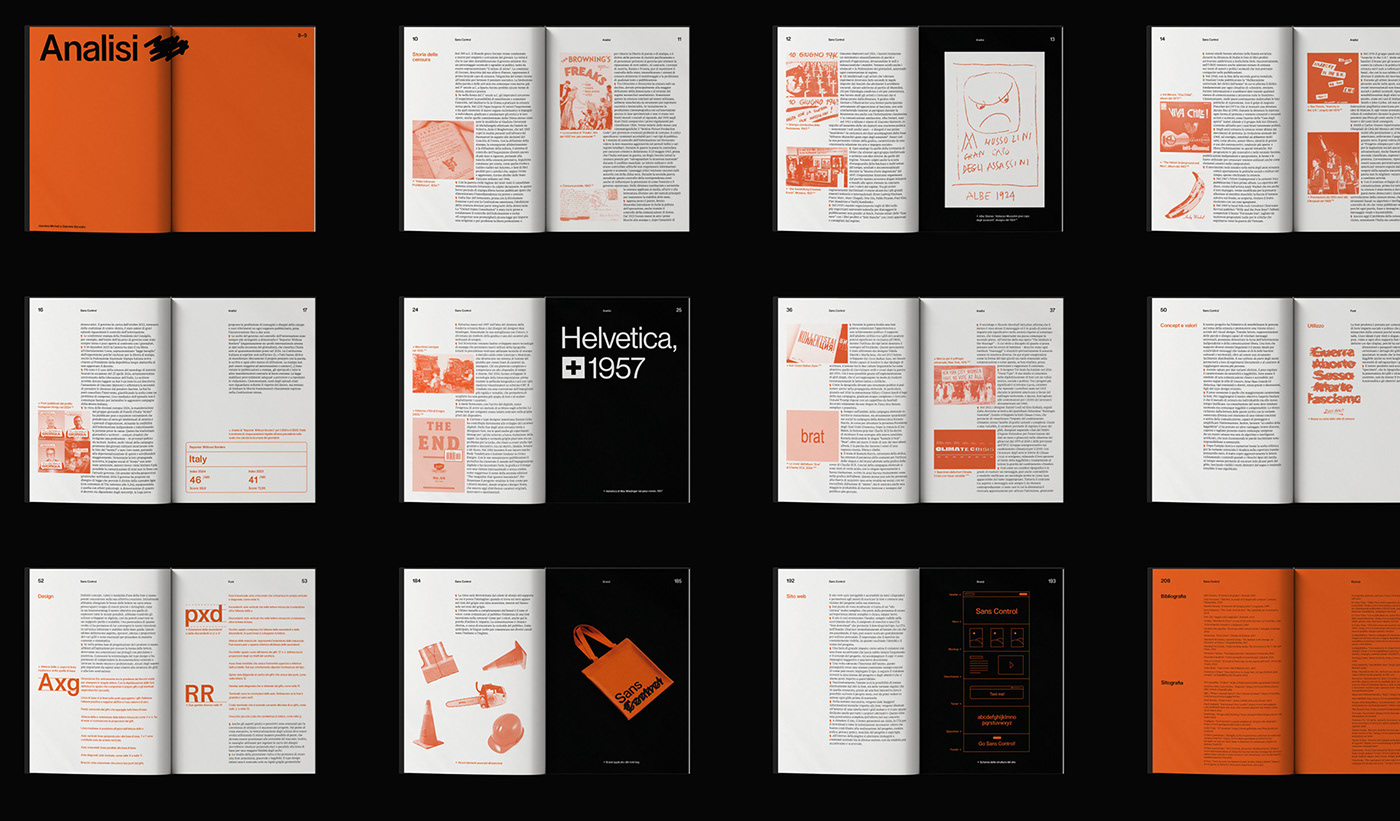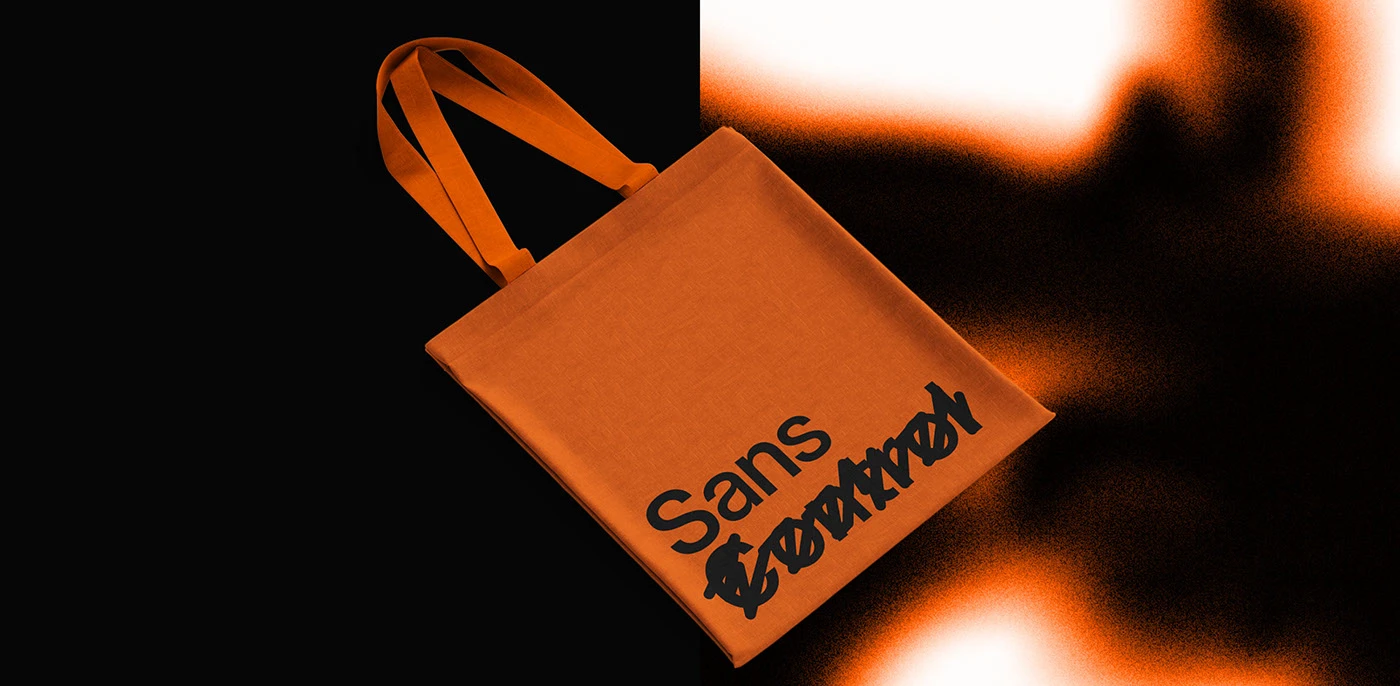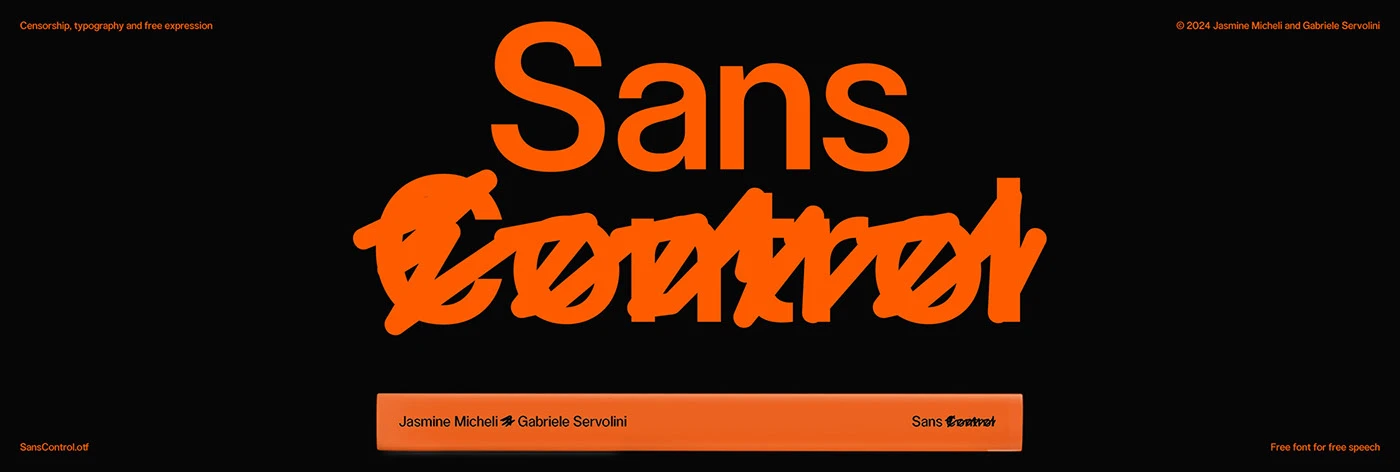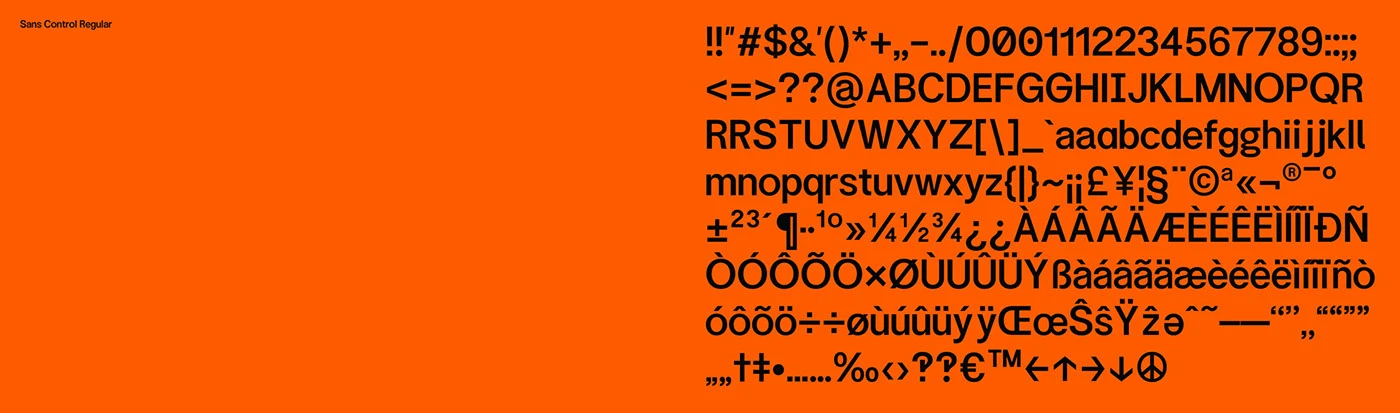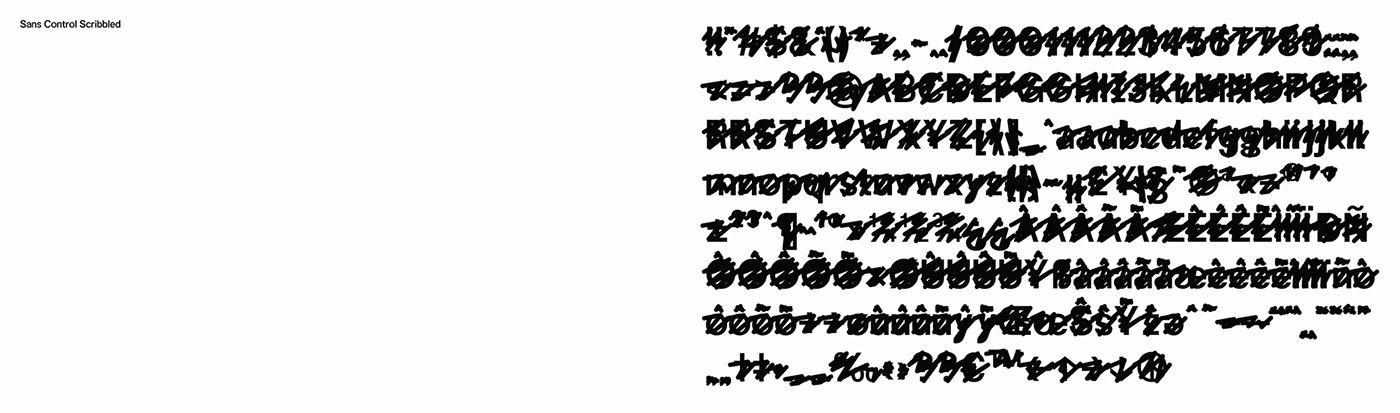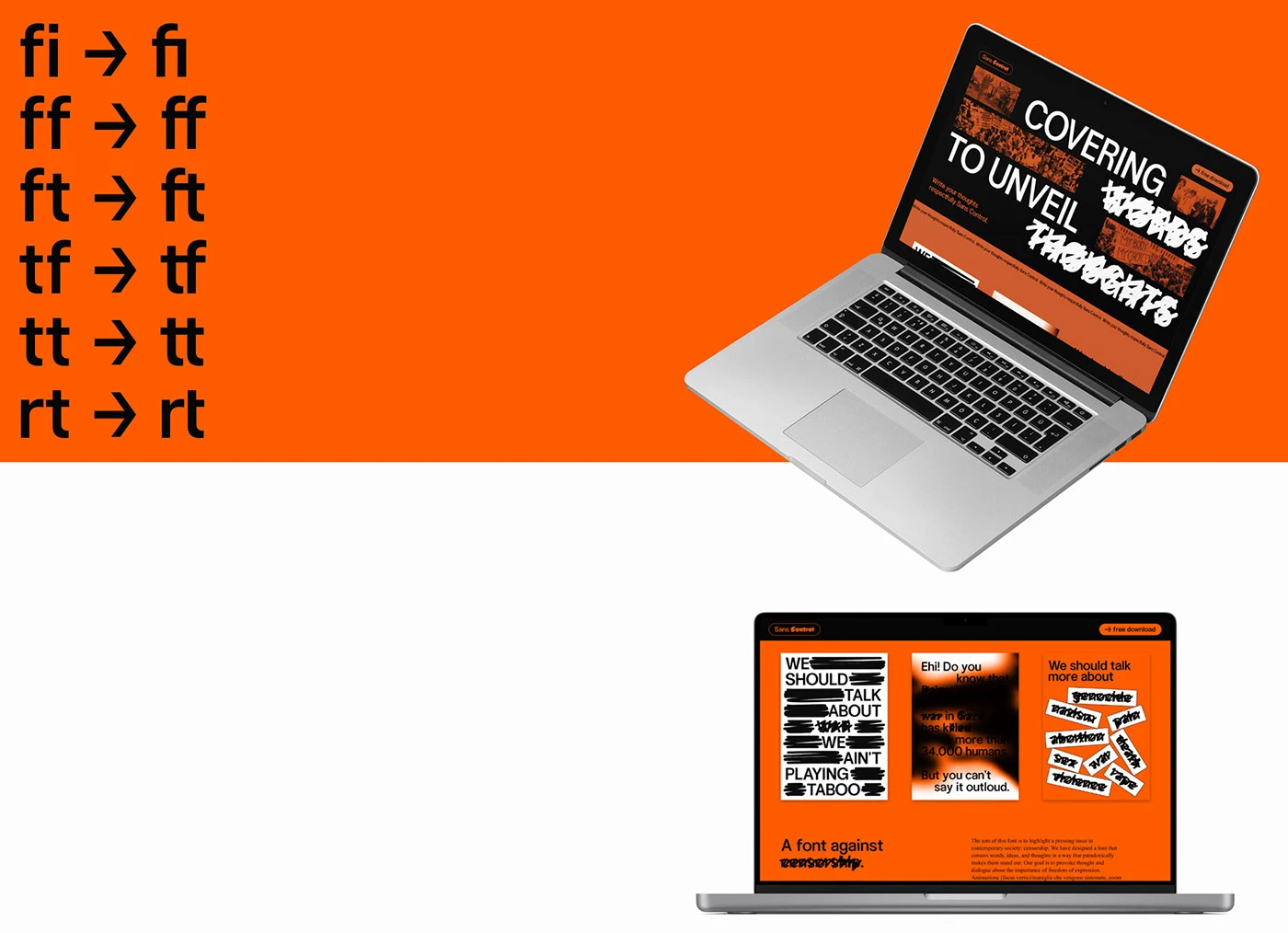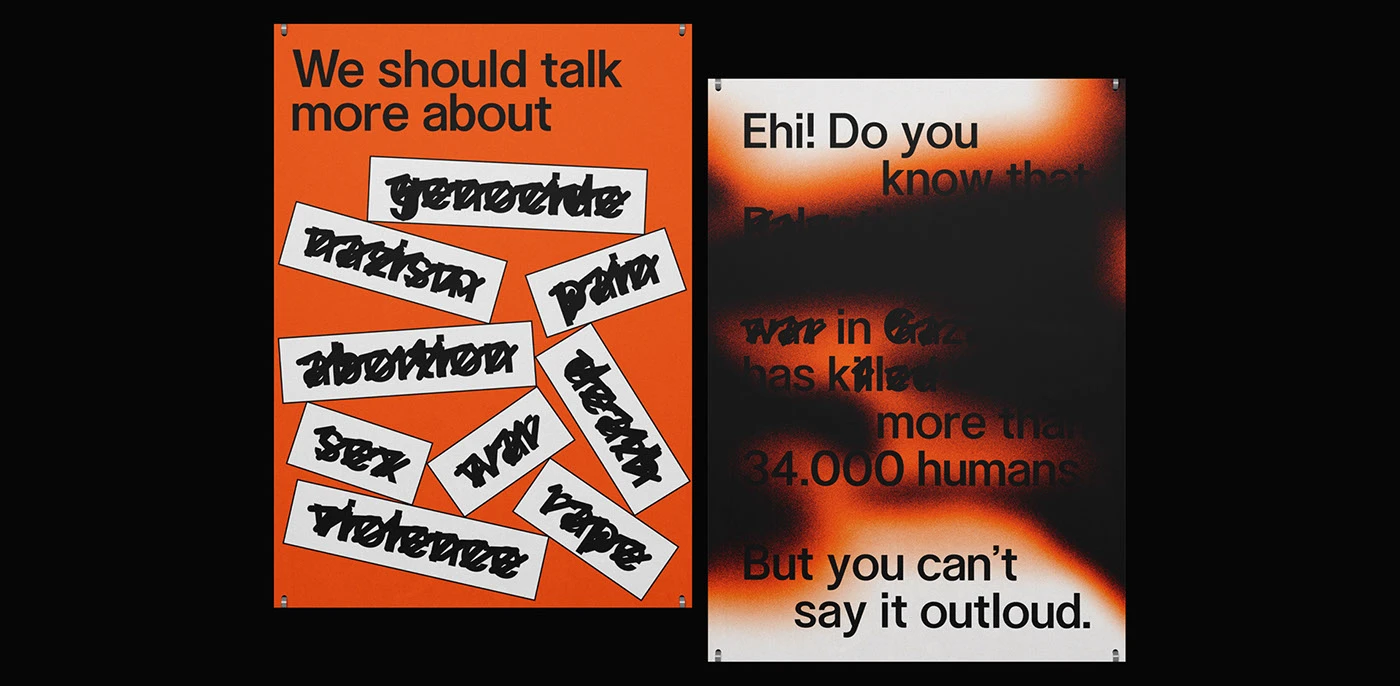
Pixel Surplus Releases Industrial Style Free Fonts
Pixel Surplus launches a bold retro typeface with strategic free fonts, combining raw letterforms designed by Gabriele Servolini.
Designers Gabriele Servolini and Jasmine Micheli redesigned the classic sans-serif font assets, establishing a distinct and highly memorable visual identity. The new free fonts use a heavy, geometric weight palette combined with clean layout structures. These shapes represent industrial aesthetics in a contemporary way. By pairing a modern typography hierarchy with customized emblems, the font remains highly approachable. Every single element of the visual design balances structural simplicity with active personality. The updated letters offer a contemporary take on classic visual symbols. This aesthetic choice balances sharp precision with warmth, reflecting the trust modern designers demand.
An Industrial Aesthetic for Retro Free Fonts
These free fonts extend beyond the digital space. It reaches into physical items like printed posters, retail apparel, and custom packaging. These physical objects carry the same clean identity. They connect with a community of designers who value precision and clean layouts. The visual style balances simple page layouts with clean product photography. Simple modular shapes and consistent line weights improve usability on digital interfaces. They create a unified style that strengthens brand trust across the entire design industry.
Ultimately, the new free fonts simplify how clients interact with corporate branding. The designers succeeded in creating an experience that feels friendly and premium. The clean layout structure ensures that complex editorial details are digestible at a glance. This makes the database a useful utility for busy visitors. This project shows how strategic design can transform a corporate brand. They created a highly reliable tool that connects well with users. They established a solid presence in the design market. Find more details on the designer's website.